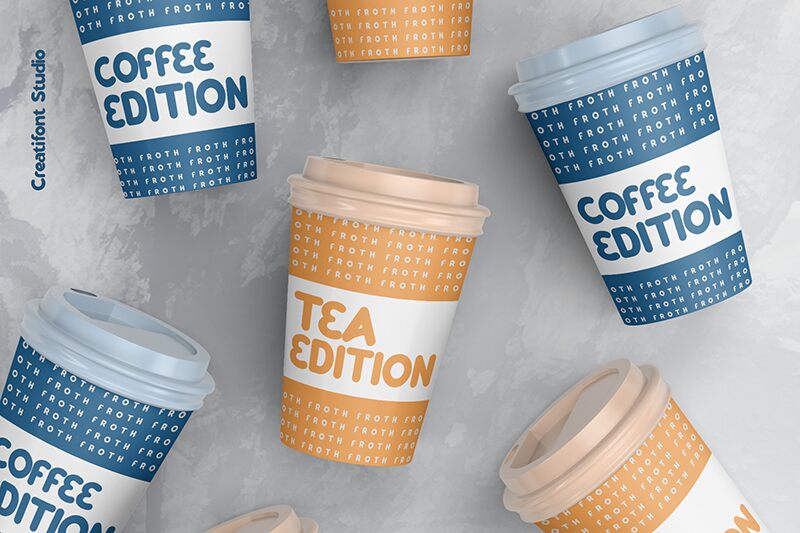
CF Cheerio Demo Regular
CF Cheerio font by Creatifont Studios is a display typeface with a modern, friendly, and approachable design. Its rounded, bold letters possess a youthful feel that can make any project feel fun and playful. Blending elegance and simplicity in its clean lines, this font is definitely one that can easily draw in the reader’s attention.